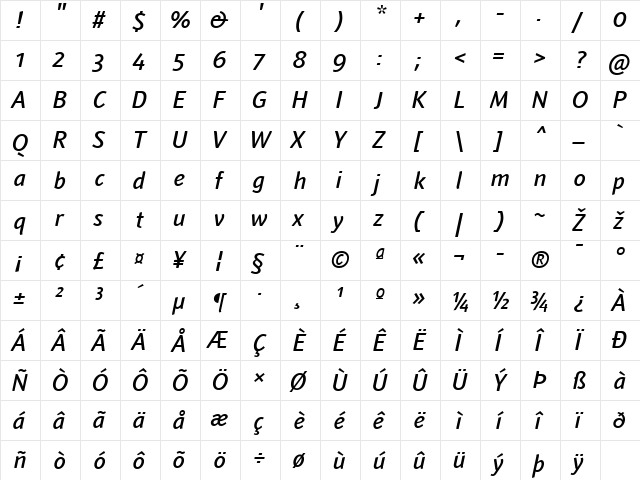
Textra LT Light Bold Italic Font Preview
| Foundry | Linotype Library GmbH |
| Designer | Jochen Schuss |
Design Context for Textra LT Light Typeface
Textra LT Light offers clean, dependable letterforms without strong stylistic allegiance, making it a practical choice for designers who need flexibility. Its italic angle brings a sense of urgency and motion to the letterforms. The heavy weight commands attention and anchors typographic hierarchies.
Pro Tip: Try Textra LT Light for annotation and caption copy alongside an upright companion — the contrast in angle creates a dynamic but ordered typographic system.